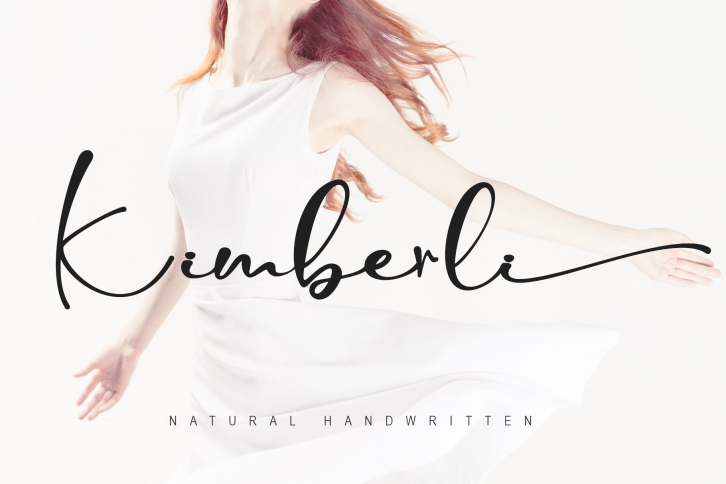
Kimberli is a trendy and unique font with an authentic style. It was designed by Thomas Aradea and it's a great choice for creative people who need such a font. It was released on February 22, 2021 and the file size is 6.28 MB. Kimberli will add an organic vibe to any design idea!